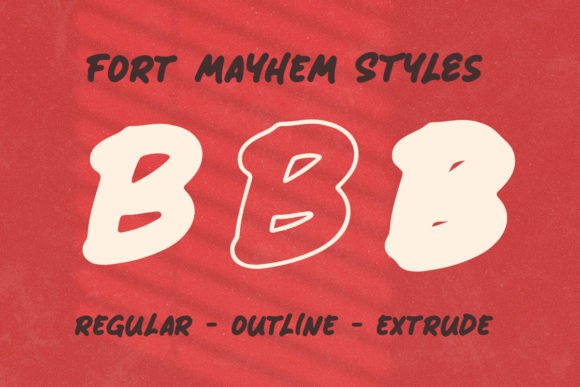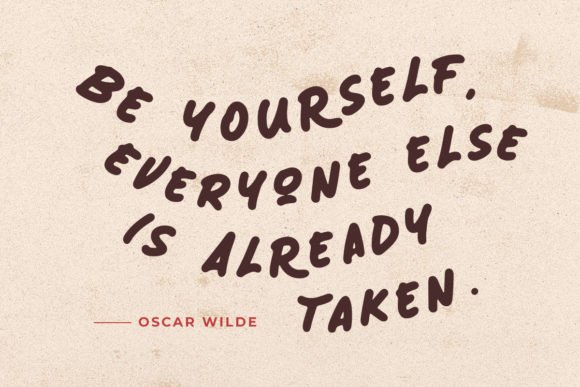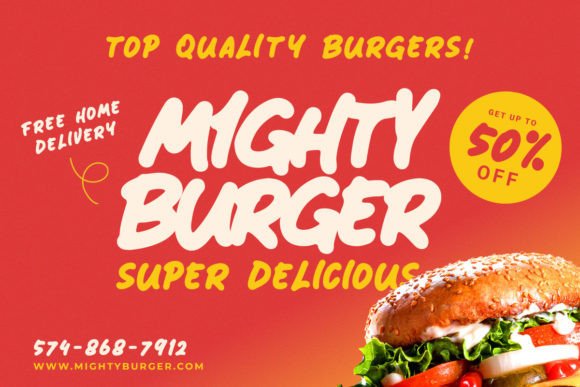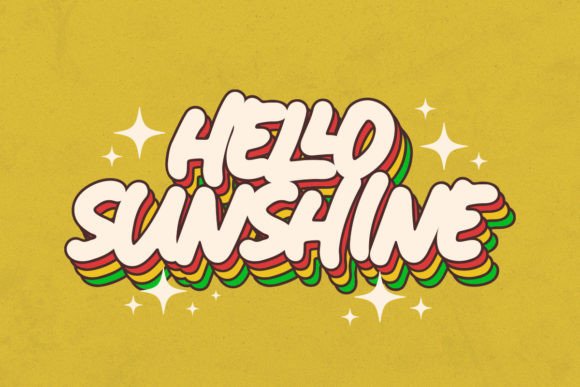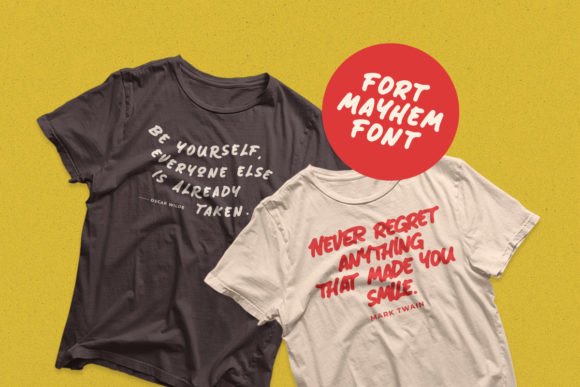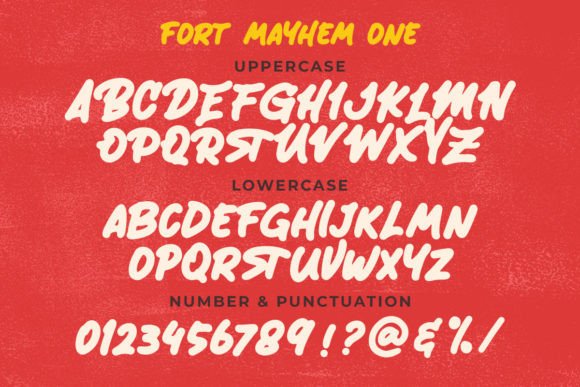
Introducing Fort Mayhem Font: Unleash Your Design’s Inner Chaos
Are you tired of using the same old fonts in your designs? Look no further than Fort Mayhem Font, a cool and unique marker display font that’s sure to add a dash of excitement to your work. With its strong, confident, and dynamic vibe, Fort Mayhem is the perfect choice for designers and crafters looking to make a statement.
The Birth of Fort Mayhem Font
Fort Mayhem Font is a carefully crafted typeface designed to evoke a sense of fun and playfulness. Its marker-inspired style gives it a distinctive, hand-drawn feel that’s perfect for adding a touch of personality to your designs. Whether you’re working on a logo, a poster, or a digital project, Fort Mayhem is sure to grab attention and leave a lasting impression.
Key Features of Fort Mayhem Font
- Unique Marker Display Style: Fort Mayhem’s marker-inspired design gives it a one-of-a-kind look that’s sure to stand out in any design.
- Strong and Confident: This font exudes confidence and strength, making it perfect for designs that need to make a bold statement.
- Dynamic and Fun: Fort Mayhem’s playful vibe is infectious, adding a dash of fun and energy to any design.
- Highly Versatile: This font is perfect for a wide range of design projects, from logos and posters to digital graphics and more.
Use Cases for Fort Mayhem Font
So, what can you use Fort Mayhem Font for? The possibilities are endless! Here are a few ideas to get you started:
- Logos and Branding: Use Fort Mayhem to create a bold and eye-catching logo that sets your brand apart.
- Posters and Flyers: Add a touch of fun and energy to your posters and flyers with Fort Mayhem’s dynamic design.
- Digital Graphics: Use Fort Mayhem to create engaging social media graphics, blog headers, and more.
- Crafting and DIY Projects: Fort Mayhem is perfect for crafters and DIY enthusiasts looking to add a personal touch to their projects.
Tips for Using Fort Mayhem Font
To get the most out of Fort Mayhem Font, here are a few tips to keep in mind:
- Experiment with Colors: Fort Mayhem looks great in bold, bright colors, so don’t be afraid to get creative with your color palette.
- Play with Texture: Add some texture to your design with Fort Mayhem’s marker-inspired style.
- Mix and Match: Combine Fort Mayhem with other fonts for a unique and eye-catching look.
In conclusion, Fort Mayhem Font is a cool and unique marker display font that’s sure to add a dash of fun and energy to your designs. With its strong, confident, and dynamic vibe, Fort Mayhem is the perfect choice for designers and crafters looking to make a statement. So why wait? Download Fort Mayhem Font today and unleash your design’s inner chaos!